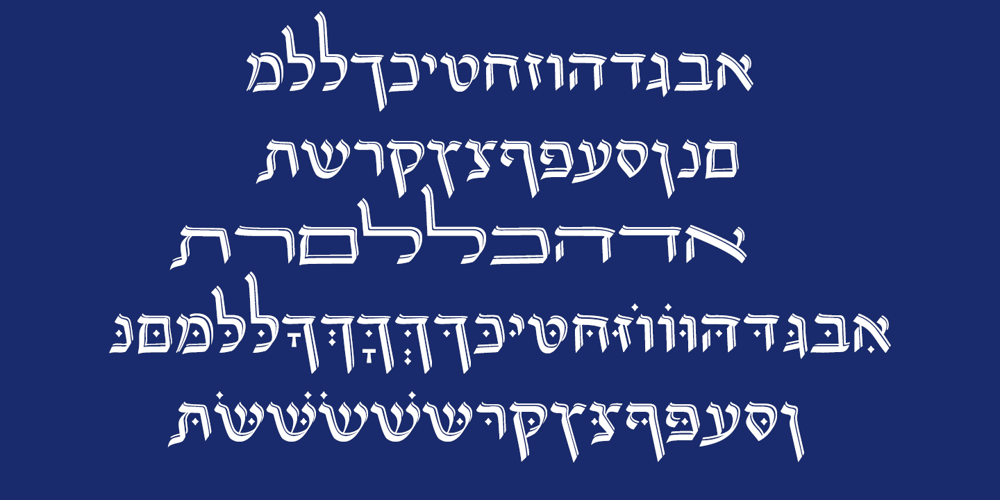
Hebrew Sara Font Family was designed by Sami Artur Mandelbaum and published by Samtype. Hebrew Sara contains 1 styles and family package options. This is calligraphic font.Good for posters and invitations.Best to use this font from 24pt size.